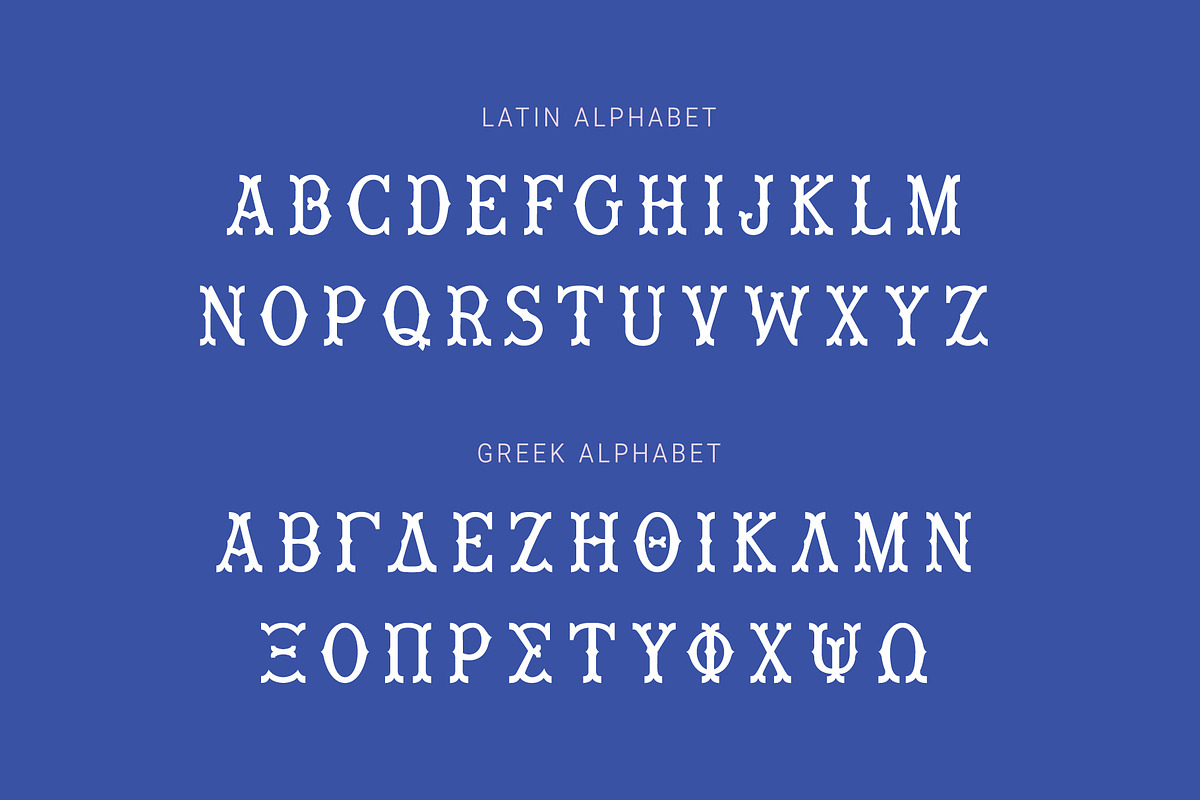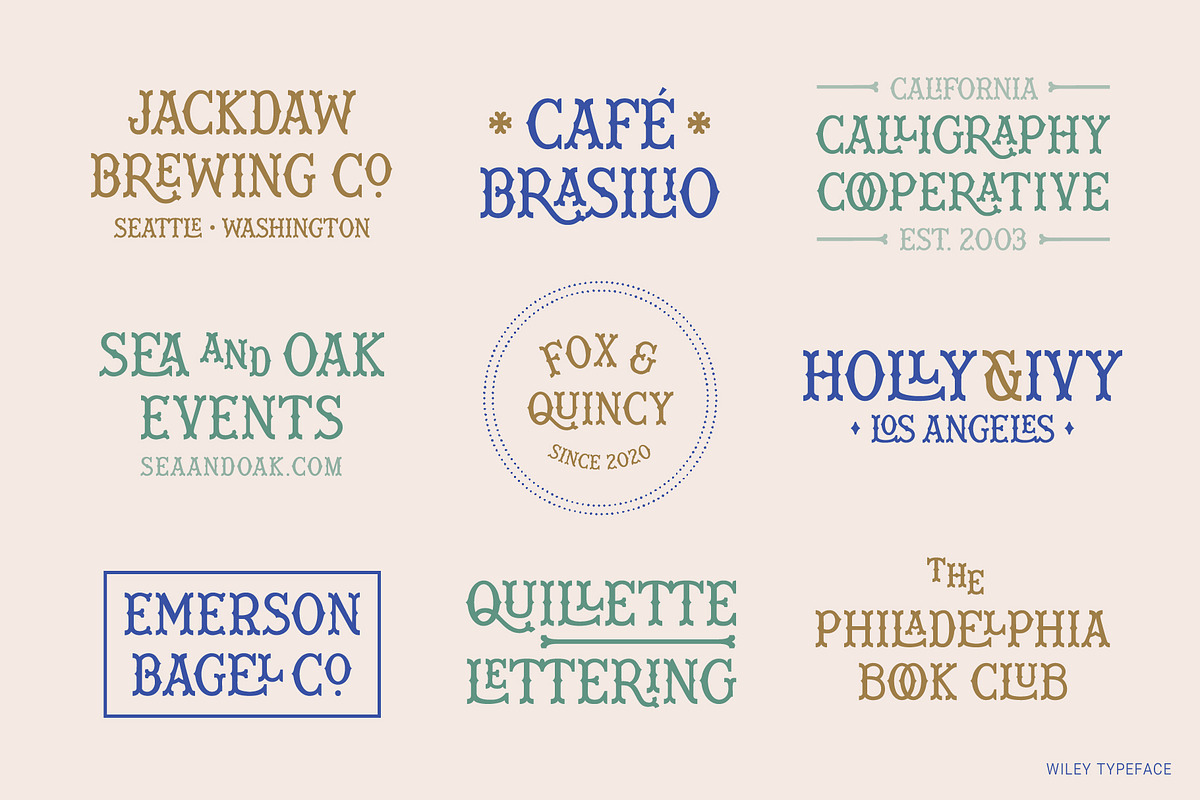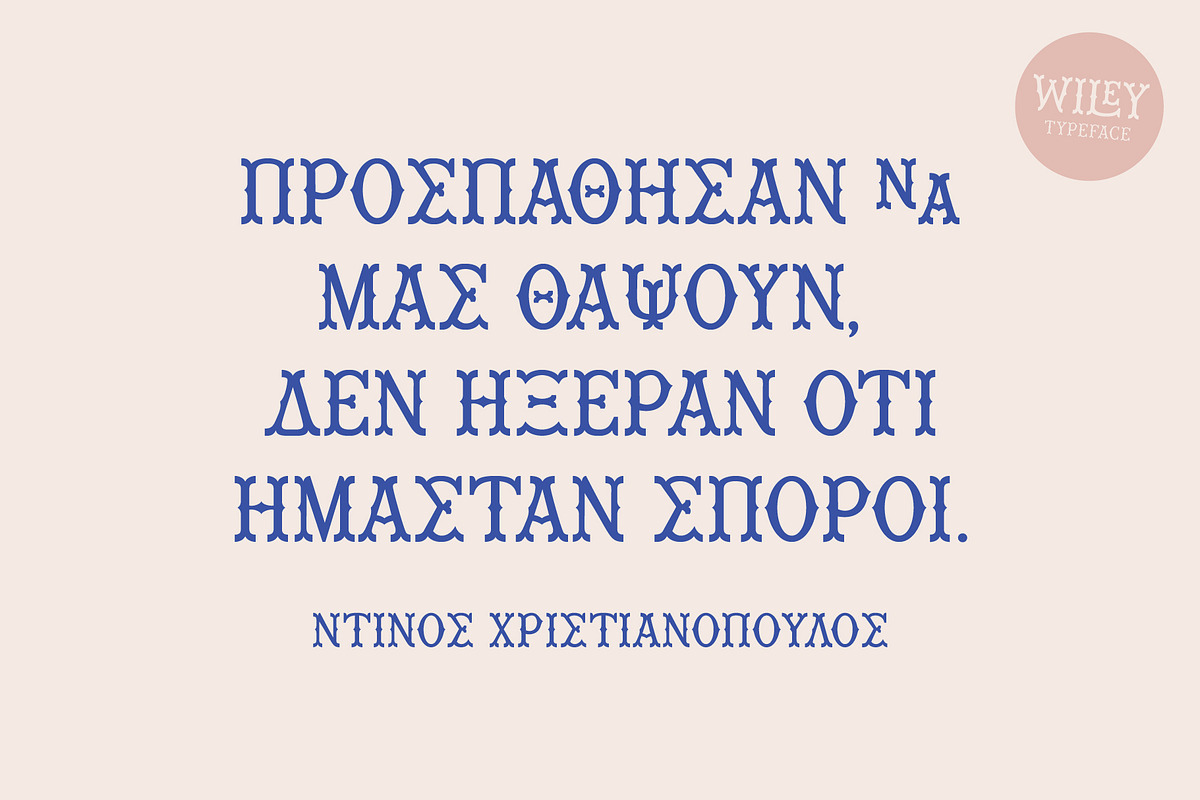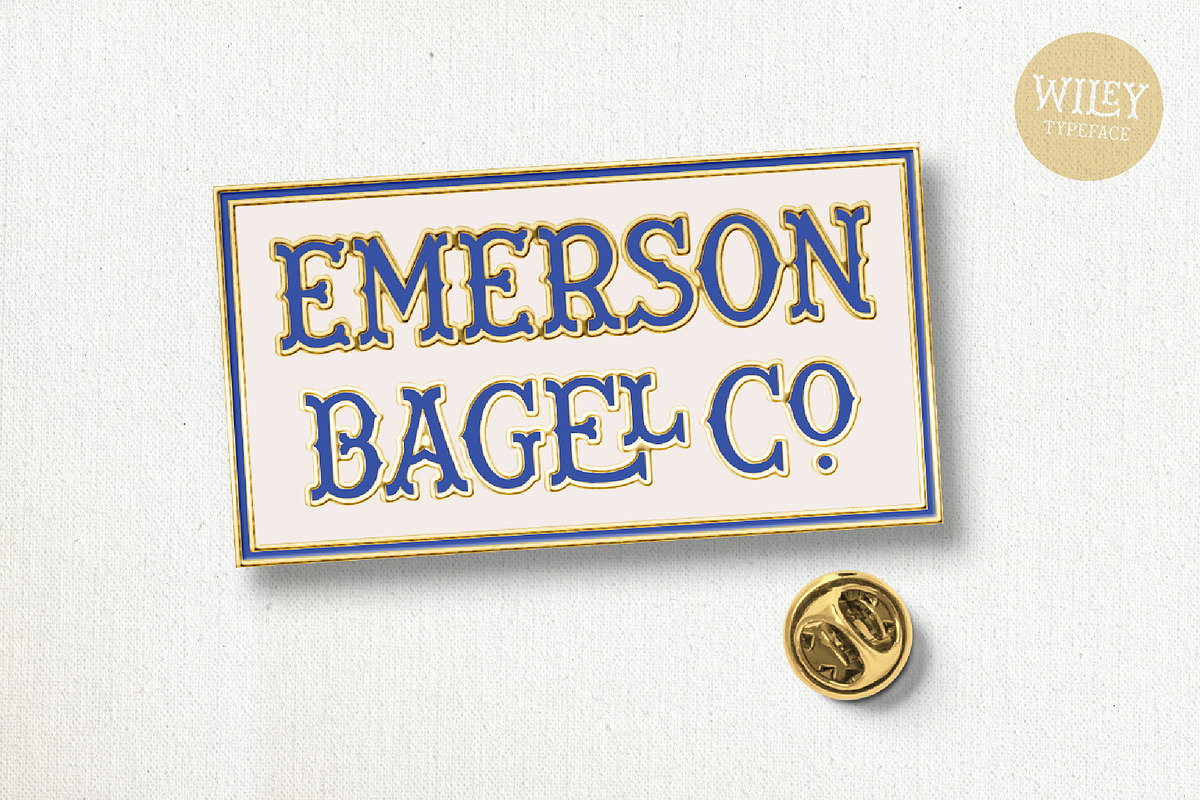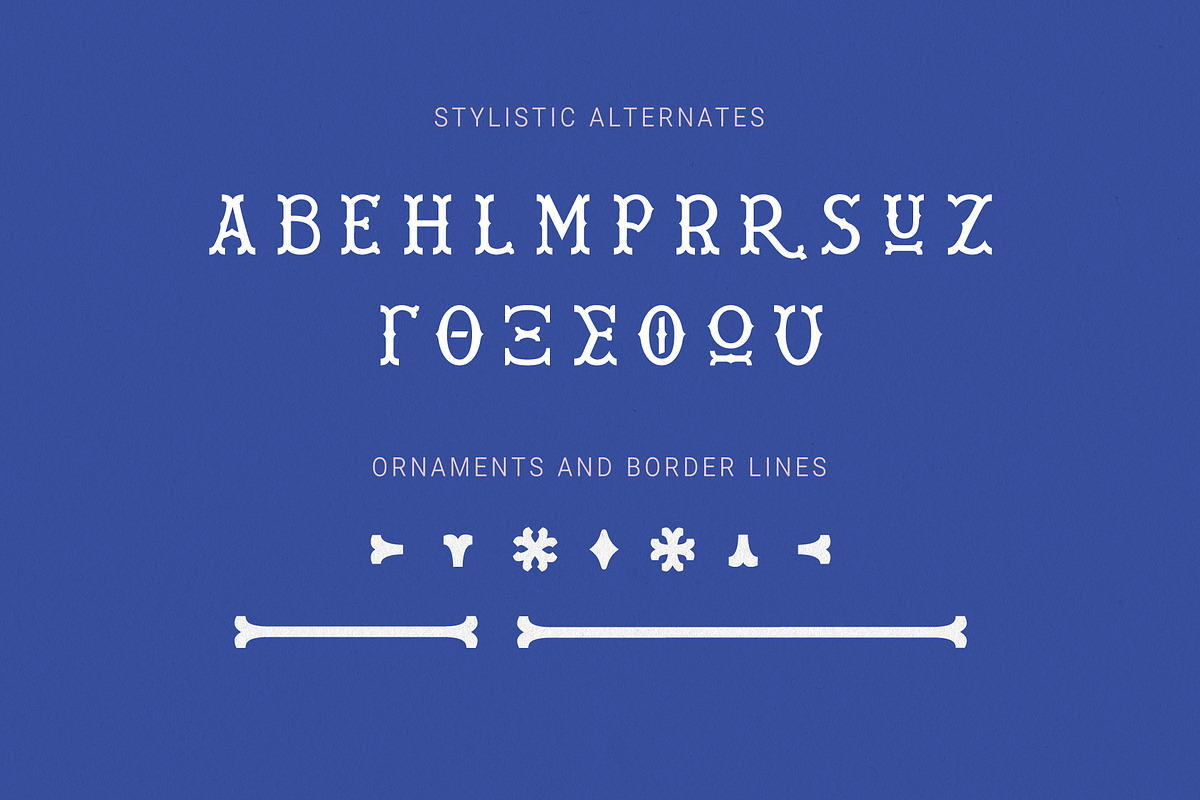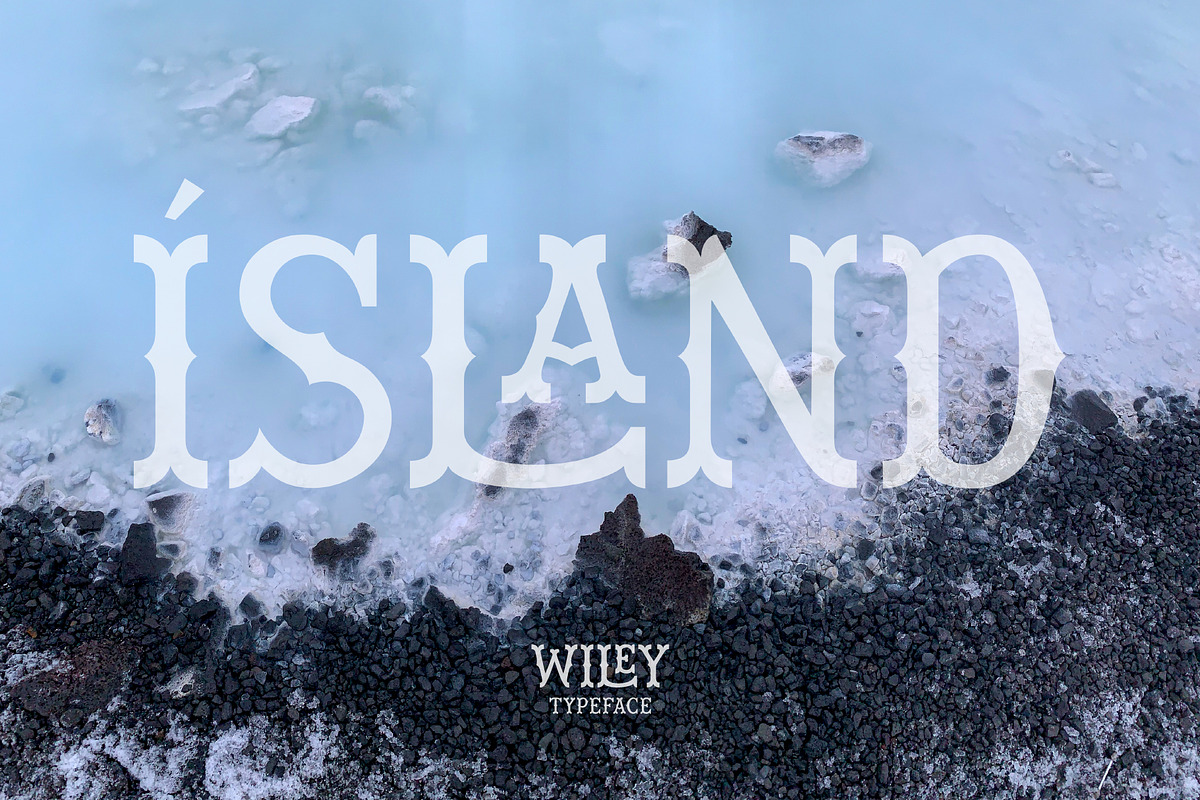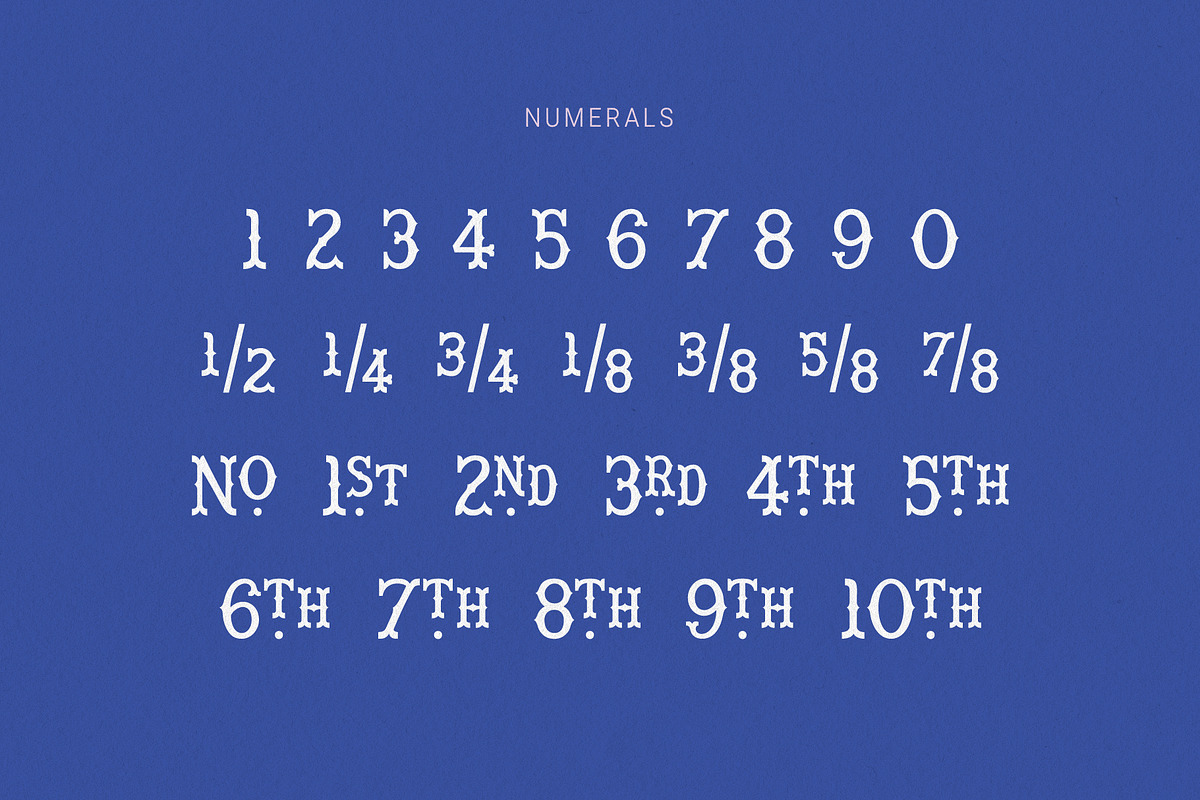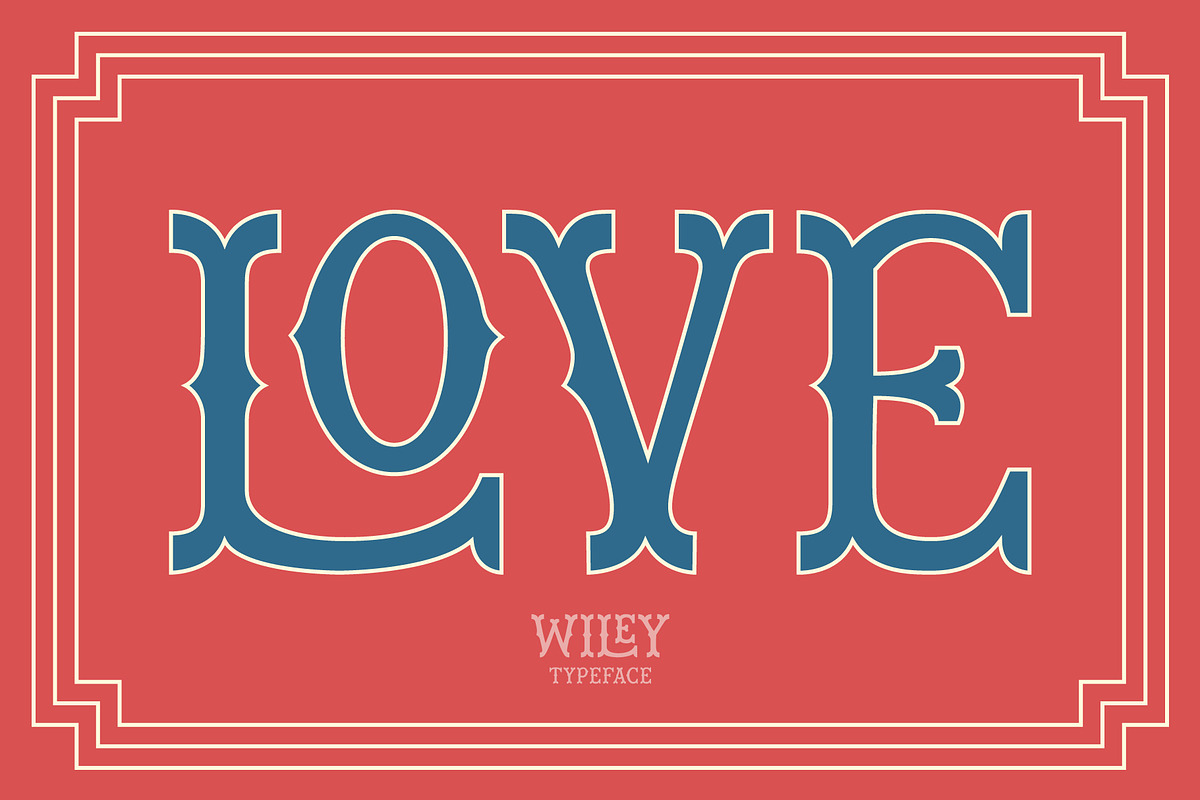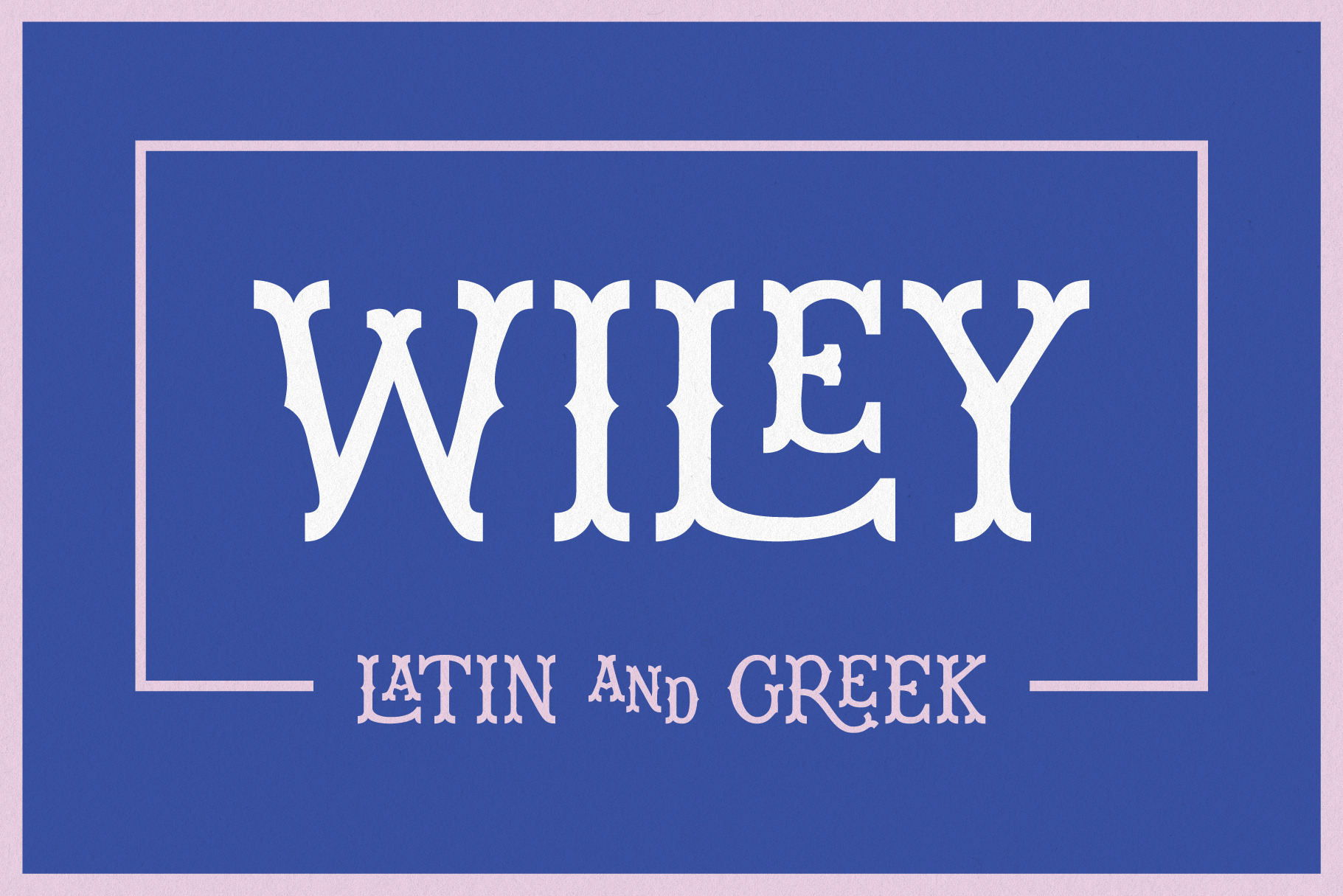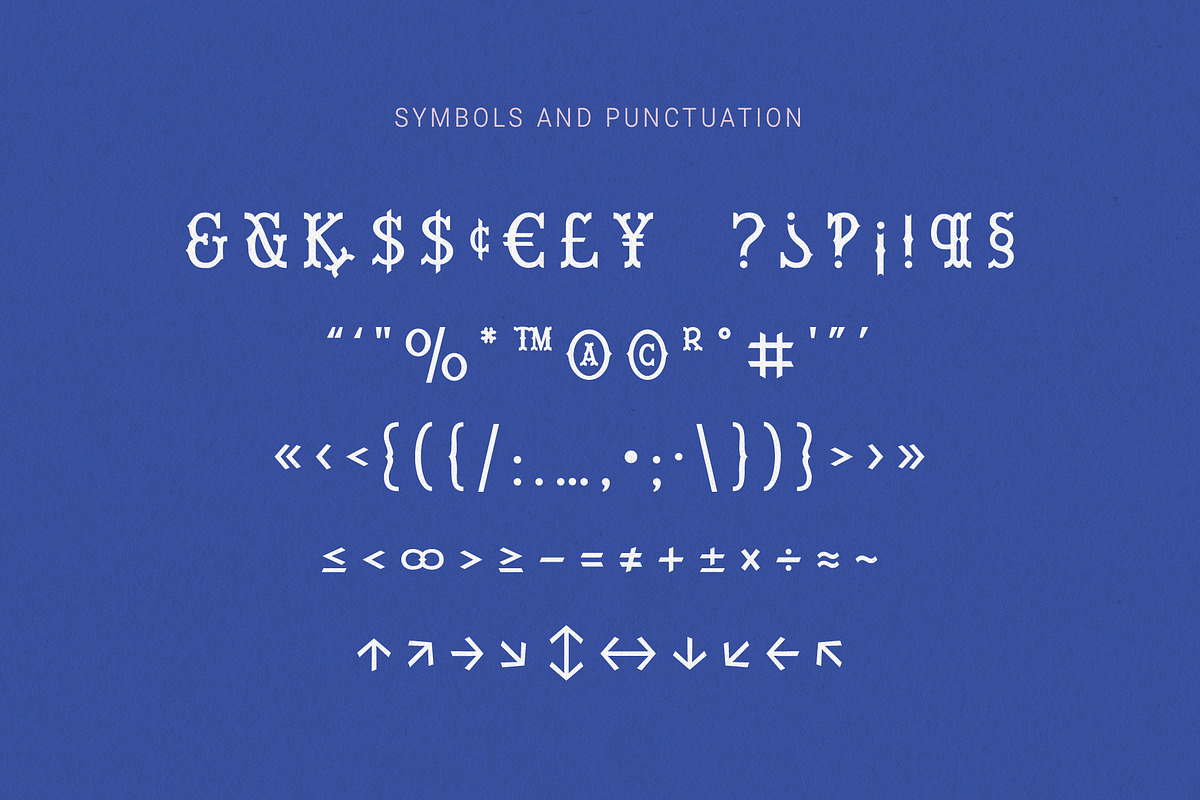
Wiley Decorative Latin & Greek Font
Wiley is a ligature-rich, decorative typeface with support for Latin and Greek. It has over 500 glyphs which include:
- the complete Latin alphabet (with all accent marks),
- the complete Modern Greek alphabet,
- 80 standard and discretionary ligatures in both Latin and Greek,
- numerals, ordinals, and fractions,
- decorative ornaments and finials,
- extensive punctuation and diacritical markings.
The ligatures are the fun part.